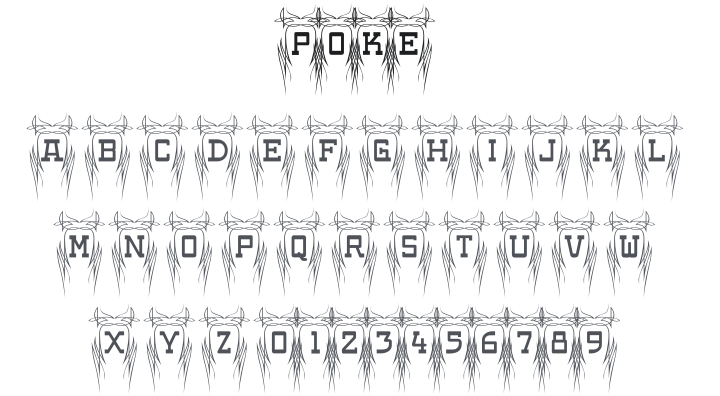
Poke Font
About Poke
Poke is a decorative monogram display typeface where each bold slab-serif letter is surrounded by elaborate pinstriping — intricate, symmetrical tattoo-style filigree with sharp spikes and flowing curves framing every character like a custom hot rod ornament. The result is equal parts vintage Americana and biker culture elegance. Perfect for tattoo branding, custom vehicle graphics, western-gothic logos, and any design needing ornate, kustom kultur flair.